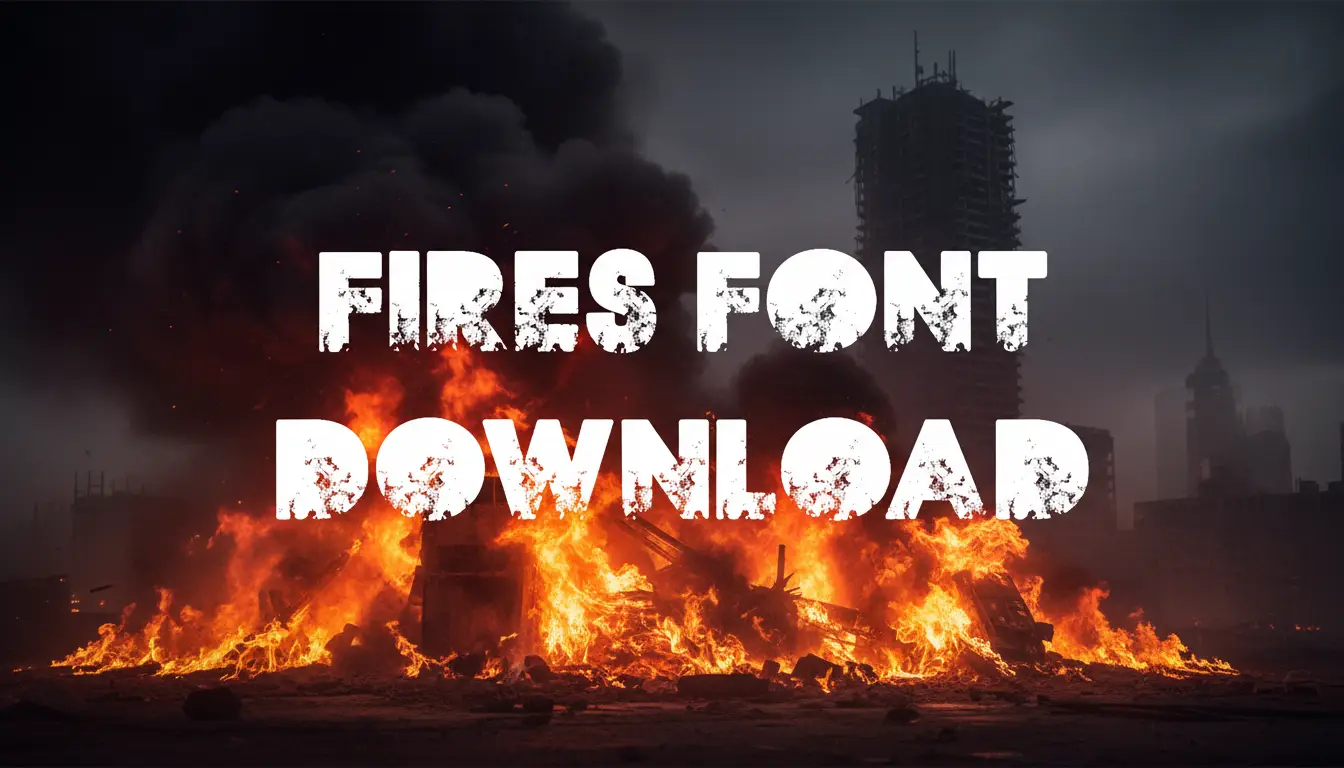
Fires Font
Fires
Fires is a fancy font created by Billy Argel. Bold and full of character, it's built to stand out rather than blend in. You can download it for free and test it with your own words in the preview above.
What You Can Type With Fires
You get every letter from A to Z in both cases and all the numbers from 0 to 9, which means Fires can handle full sentences, dates and prices. Punctuation is limited, so look at the character map if you need a specific symbol. It also has the accented letters you need for Spanish, French, German, Portuguese and Italian.
Where Fires Works Best
Fires is a natural fit for posters, logos and eye-catching headlines. Use it for one standout word or headline and let simpler fonts handle the rest.
Does Fires support accented letters?
Yes. Fires includes the accented letters needed for Spanish, French, German, Portuguese and Italian, so it works for more than just English.